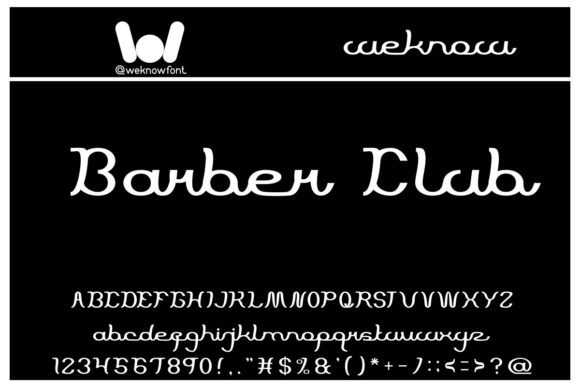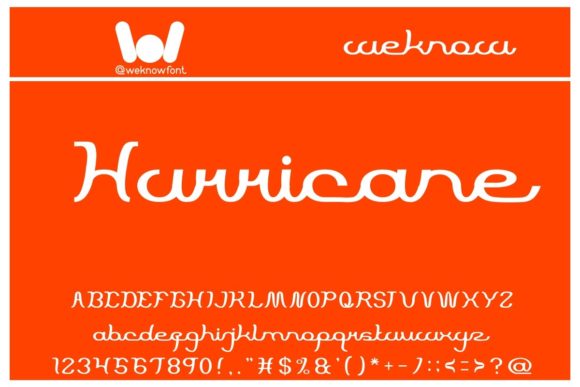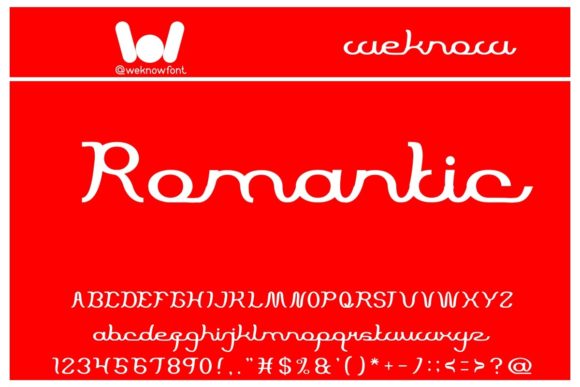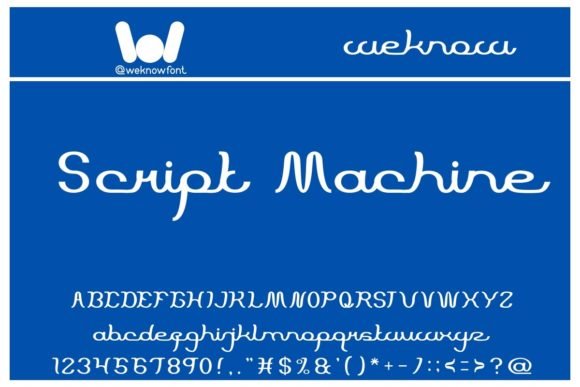
Introduction to Script Machine Font
Script Machine is a chic font.
It is smooth and suits logos, headline font, poster, music, movie, game, magazine, book, comic, cartoon, YouTube, Instagram, website, or any of your creative design projects .
Key Features of Script Machine Font
Why Choose Script Machine Font?